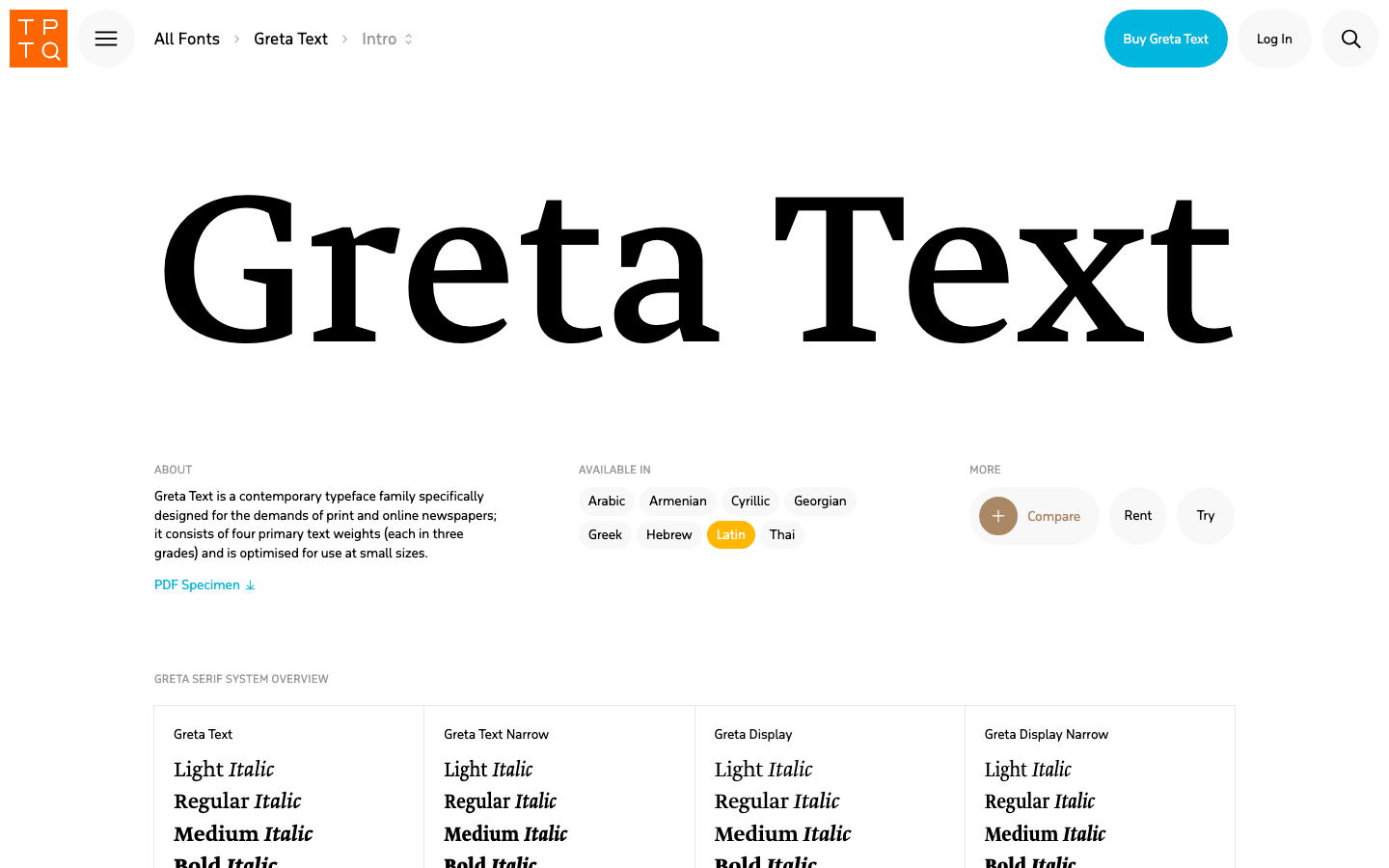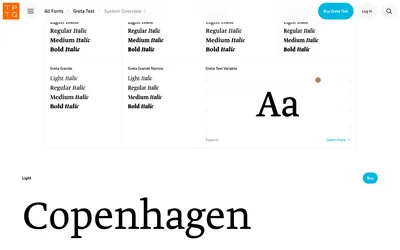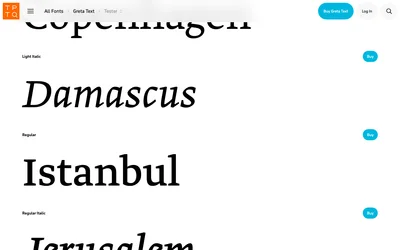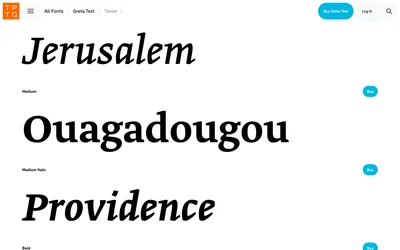
About Greta Text
- Foundry
- Typotheque
- Classification
- serif
- Style
- newspaper
Greta Text is a newspaper serif typeface from Typotheque, designed by Peter Bilak. Part of the larger Greta family, Greta Text is specifically optimized for text sizes in newspaper and editorial applications. The design combines the authority of traditional newspaper typefaces with contemporary refinements.
Greta Text features robust letterforms that perform reliably in the demanding conditions of newspaper printing and digital publishing. The typeface's moderate contrast and open counters ensure readability across various reproduction methods. Typotheque's extensive multi-script support makes Greta Text valuable for international publications.
What makes Greta Text special?
Greta Text is specifically optimized for newspaper reproduction with robust letterforms and extensive multi-script support.